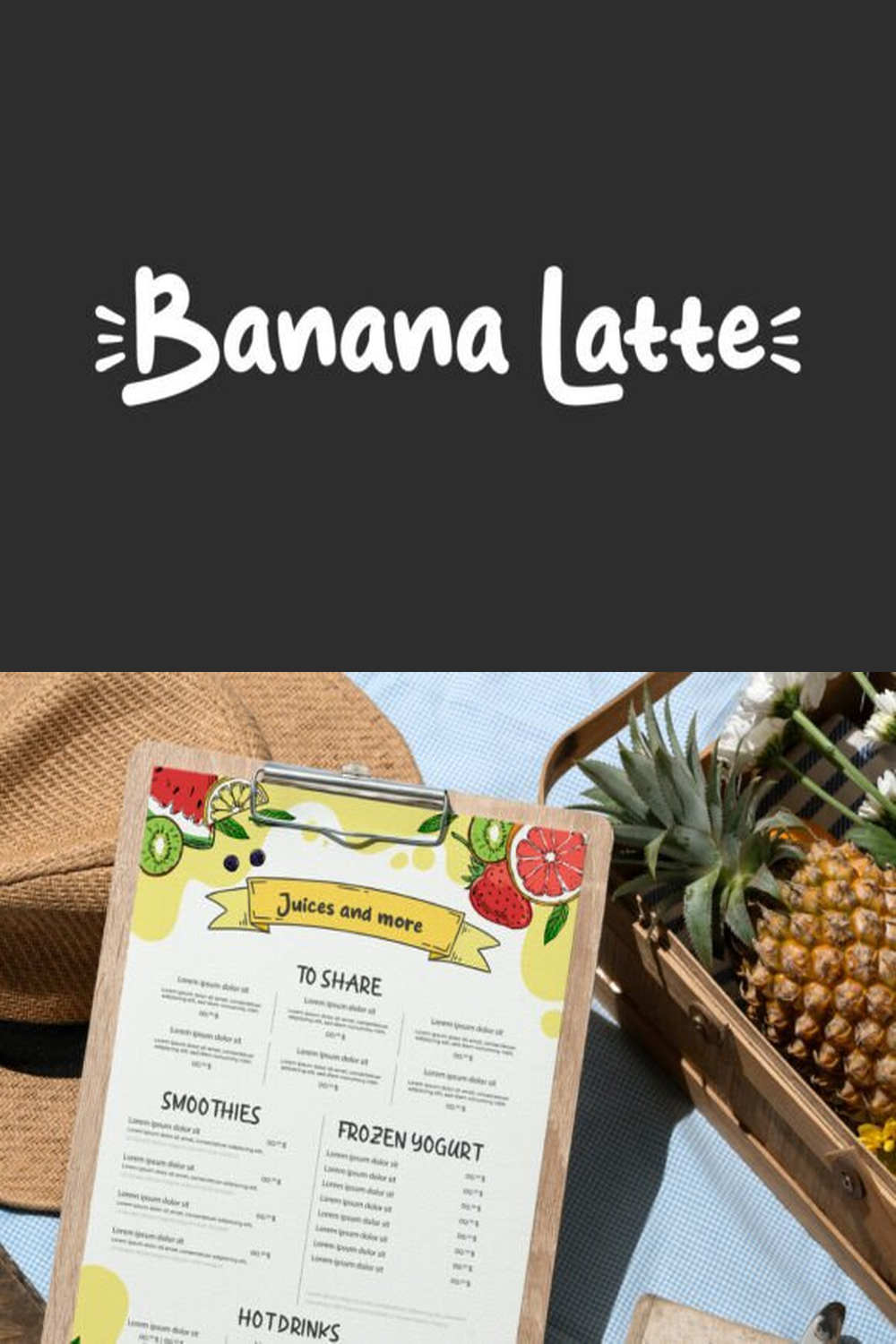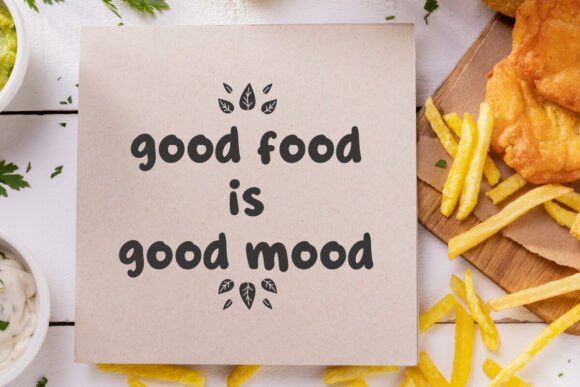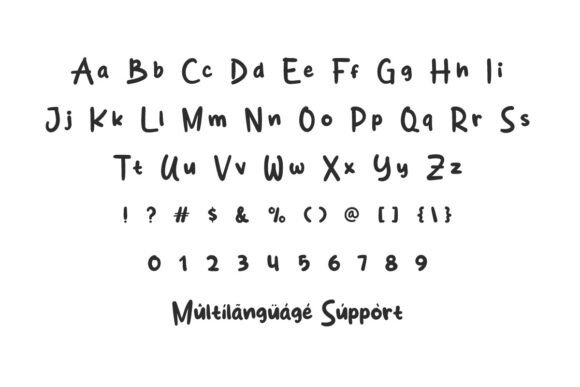
Banana Latte Font: A Cute Handwritten Font for Playful Designs
About the Banana Latte Font
Make a bold statement with Banana Latte Font, a powerful and memorable font. Banana Latte Font is a cute, playful handwriting font with some special ornament characters. This font can give a delight feels through its bold and small letters. It will suit many designs, such as brochure, cover, custom design, gift box, invitation, label, menu, poster, product packaging, quote, screen printing, signage, stationery, website, and more!
Banana Latte Font Usage Examples